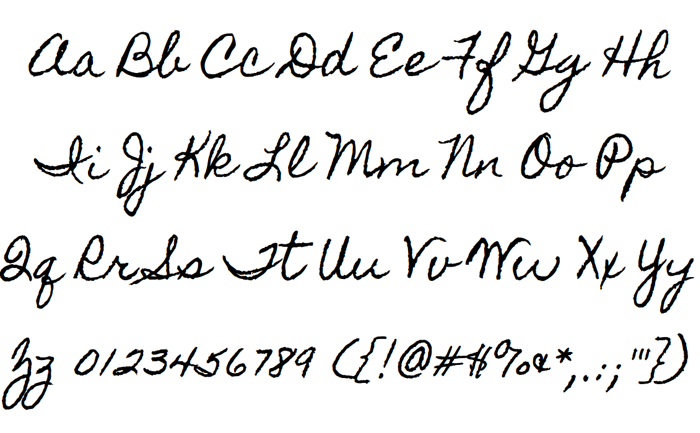
Homemade Apple Font
Mmmm Mmmm! Nothing says down-home goodness like a delicious Homemade Apple! You can't just buy 'em anywhere, you have to make it yourself! And should you find yourself lacking in the recipe department, bust out this beautifully drawn cursive handwriting script and delight in its warmth! Use it whenever you want to give a personal touch!
This is my favorite font right now. It's great! It looks like it's handwritten, and homemade apple is the perfect name for it.
HEAPS GOOD TEXT LOOKS LIKE WRITTING
@danirox agree but not in da writting part 😃
So cute font! 😄 Like it!
Lovely font<3
What a great surprise. This looks just like my natural handwriting! Wish there was some way to reduce the spacing between the lines. Outstanding!!!
such a breezy, relaxed, freestyle font. awesome!
So what is the origin of this font? It's the exact same as my actual handwriting, and I'm 44, and I had to have learned it that way.